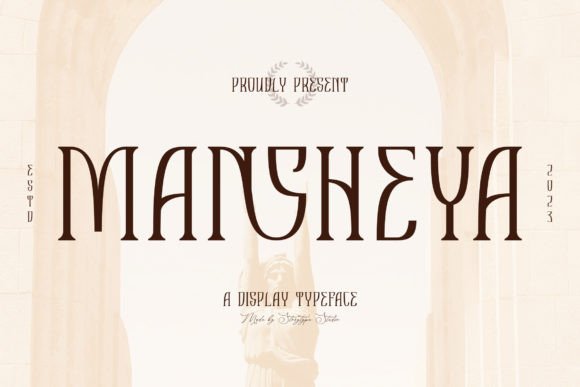
Step into the world of elegance and sophistication with Mansheya Font, the serif typeface that exudes timeless beauty and modern charm. Crafted with the utmost precision and attention to detail, Mansheya is a visual masterpiece that will elevate your designs to new heights of sophistication.
Immerse yourself in the world of Mansheya Font, a captivating serif typeface that dances with grace and poise across your digital canvas. With its impeccable curves and refined letterforms, Mansheya embodies the essence of timeless elegance and modern aesthetics. Unleash your creativity and embark on a journey of visual splendor as you craft designs that captivate and inspire.
With Mansheya Font as your creative companion, you'll effortlessly weave tales of love, joy, and eternal romance. Picture your wedding website adorned with Mansheya's delicate strokes, each letter flowing into the next like a whispered promise. Your guests will be enchanted by the sheer beauty of your digital invitation, setting the tone for an unforgettable celebration.
But Mansheya's versatility extends far beyond the realm of weddings. Its timeless charm finds a home in book covers and movie titles, where it commands attention with its regal presence. Fashion brands and magazines alike will find solace in Mansheya's ability to elevate their visual identity, exuding an aura of luxury and sophistication.
Unleash your inner artist and let Mansheya Font guide you through a realm of creative possibilities. With its innate ability to transform ordinary text into extraordinary art, Mansheya becomes your muse, inspiring you to create designs that resonate with your audience. Whether you're crafting heartfelt quotes, eye-catching logos, or captivating lettering, Mansheya will effortlessly elevate your vision.